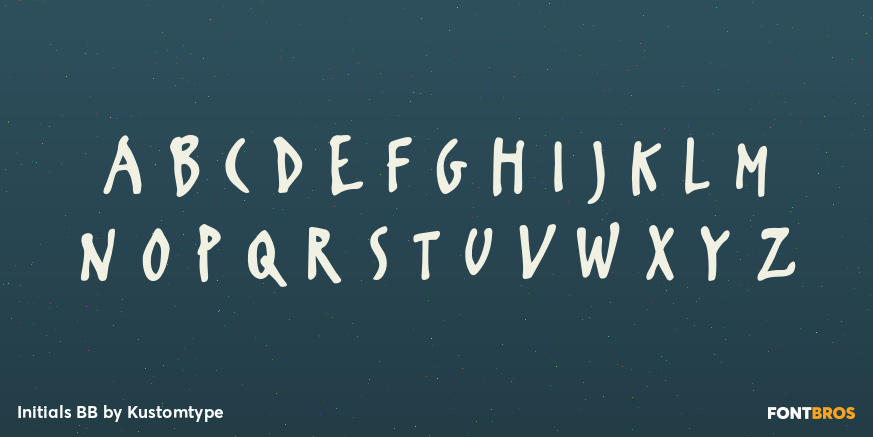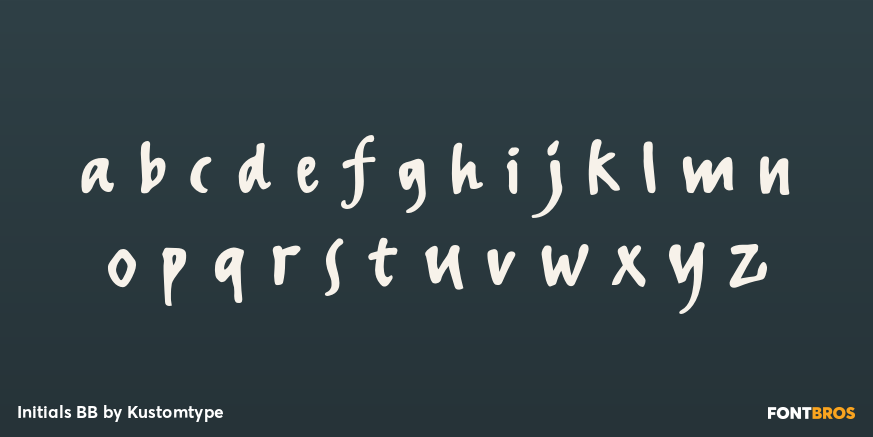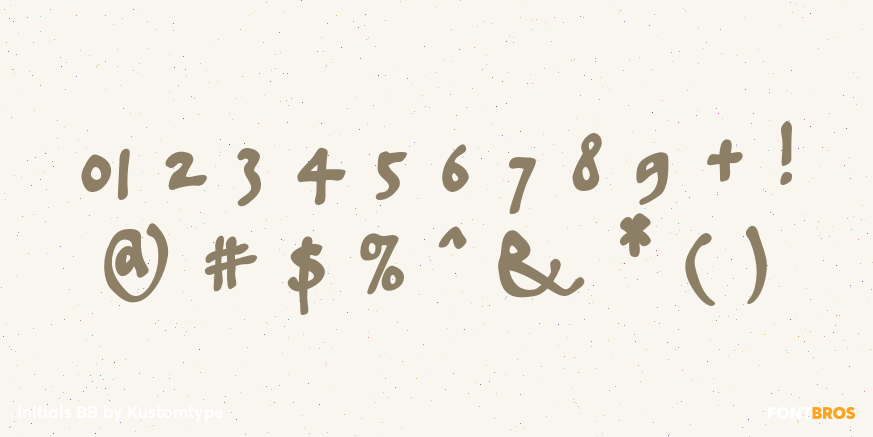
Initials BB
Font Family by Kustomtype
If you need a handwriting font for your project, look no further. Brigitte Bardot is the lady behind this quirky, tongue-in-cheek handwriting font.